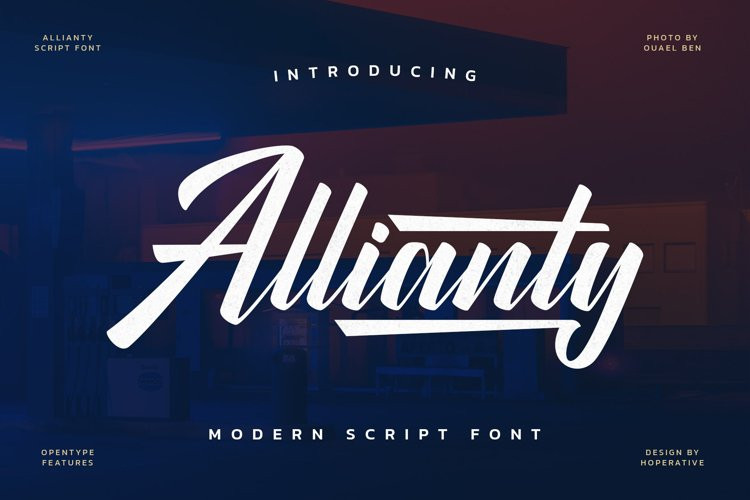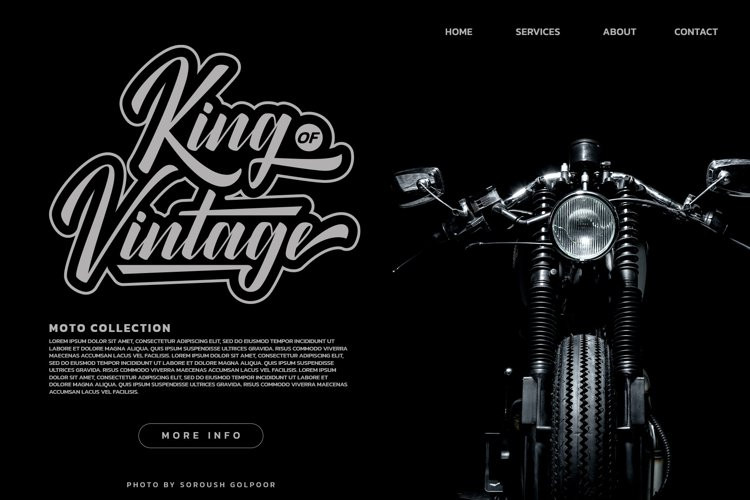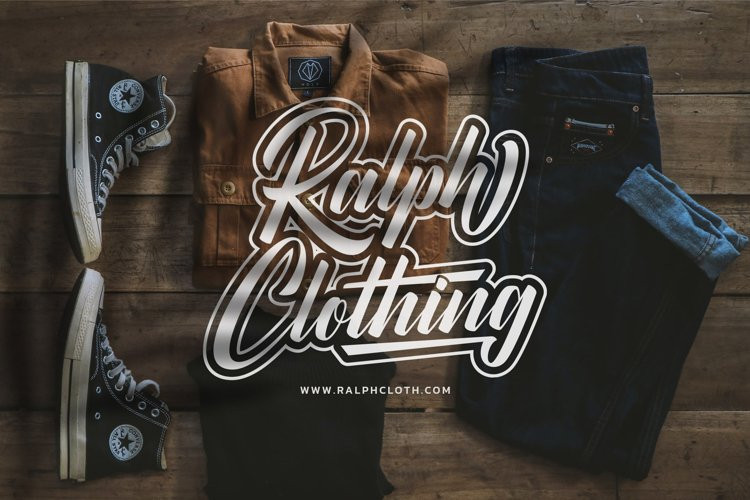
Allianty Font
Allianty FontAllianty is modern brush script font. It has a classy, elegant and modern look that can be used for logos, branding, invitations, stationery, wedding designs, social media posts, and much more!